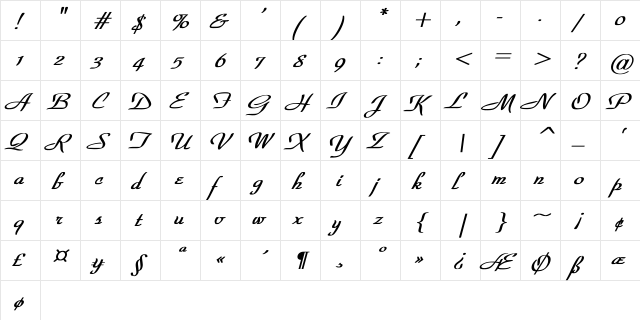
Park-Avenue-Ro BI Bold Italic
Design Context for Park-Avenue-Ro BI Typeface
Park-Avenue-Ro BI is a composed and adaptable typeface that performs quietly and consistently across a wide range of design contexts. Its italic angle brings a sense of urgency and motion to the letterforms. The heavy weight commands attention and anchors typographic hierarchies.